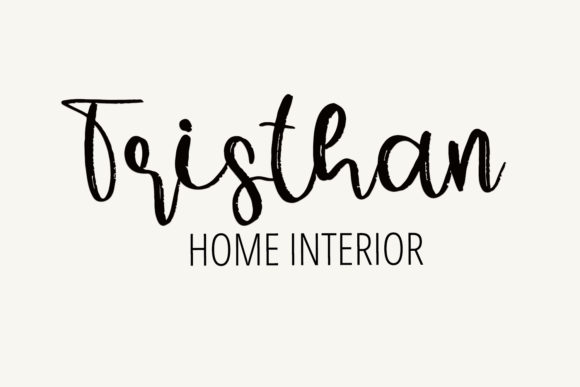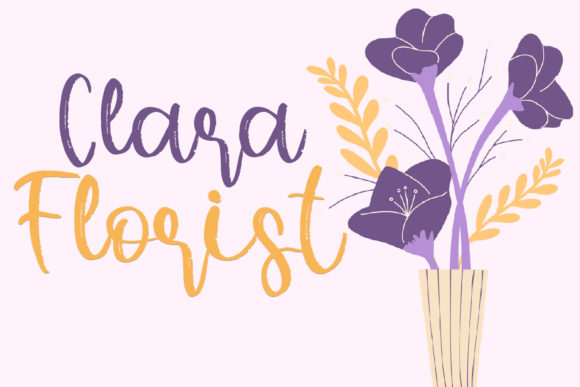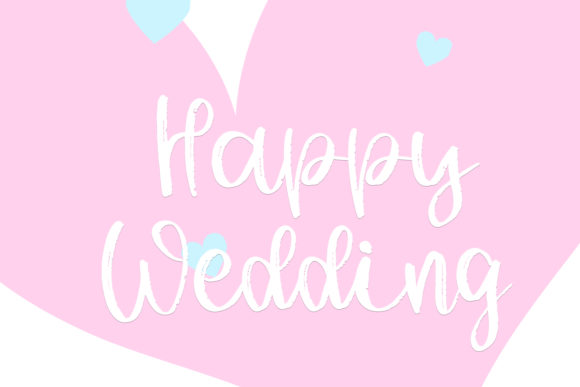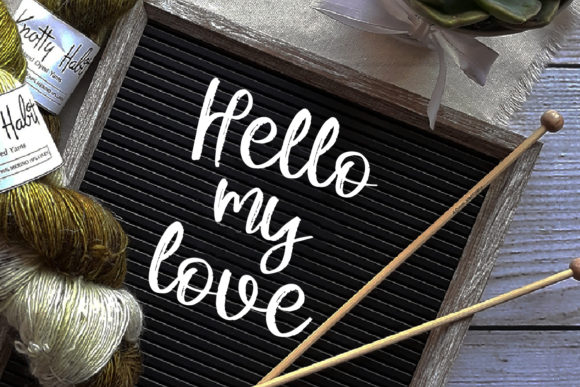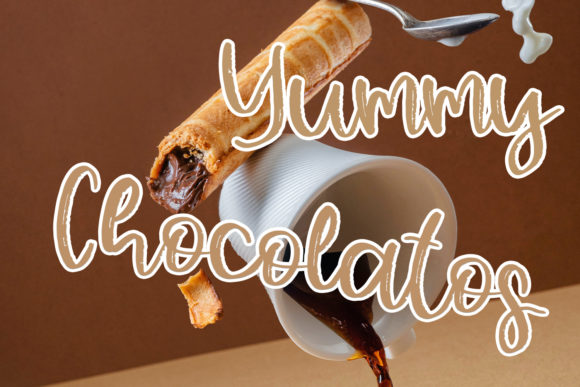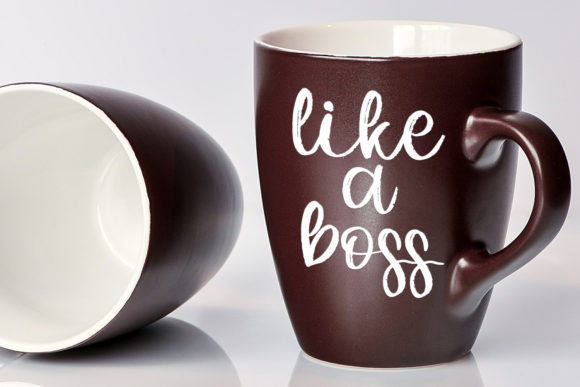
Introducing Farmhouse Font: A Sweet Brushed Handwritten Masterpiece
Are you a designer or crafter looking for a unique and versatile font to elevate your creative projects? Look no further than Farmhouse Font, a sweet brushed handwritten font that is sure to capture your heart. With its distinct and well-rounded letters, Farmhouse Font is a masterpiece that can add a touch of warmth and personality to any design.
The Charm of Farmhouse Font
Farmhouse Font is a beautifully crafted font that boasts a charming, handwritten aesthetic. Its brushed strokes and rounded letters give it a soft, inviting feel that is perfect for a wide range of design applications. Whether you’re creating a rustic-themed wedding invitation, a cozy blog post, or a charming craft label, Farmhouse Font is the perfect choice.
- Distinct and well-rounded letters: Each letter in Farmhouse Font is carefully crafted to be unique and visually appealing, making it a joy to read and use.
- Incredibly versatile style: Farmhouse Font can be used in a variety of design contexts, from rustic and vintage to modern and minimalist.
- Sweet brushed handwritten aesthetic: The font’s brushed strokes and handwritten feel give it a warm, personal touch that is hard to resist.
- Easy to read and use: Despite its decorative nature, Farmhouse Font is surprisingly legible and easy to use, making it perfect for body text and headlines.
Design Applications for Farmhouse Font
Farmhouse Font is an incredibly versatile font that can be used in a wide range of design applications, including:
- Wedding and event invitations: Add a touch of rustic charm to your wedding or event invitations with Farmhouse Font.
- Blogging and social media: Use Farmhouse Font to add a personal touch to your blog posts, social media graphics, and other online content.
- Crafting and DIY projects: Farmhouse Font is perfect for craft labels, packaging, and other DIY projects that require a personal touch.
- Branding and packaging: Use Farmhouse Font to create unique and eye-catching branding and packaging for your business or product.
To get the most out of Farmhouse Font, here are a few tips to keep in mind:
- Pair it with complementary fonts: Farmhouse Font pairs well with clean, sans-serif fonts like Arial, Helvetica, or Open Sans.
- Experiment with colors and textures: Farmhouse Font looks great in a variety of colors and textures, so don’t be afraid to experiment and find the perfect combination for your design.
- Use it consistently: To create a cohesive look, use Farmhouse Font consistently throughout your design.
Farmhouse Font is a sweet brushed handwritten font that is sure to capture your heart. With its distinct and well-rounded letters, incredibly versatile style, and charming aesthetic, it’s the perfect choice for designers and crafters looking to add a touch of warmth and personality to their creative projects. So why wait? Fall in love with Farmhouse Font and start creating spectacular designs today!